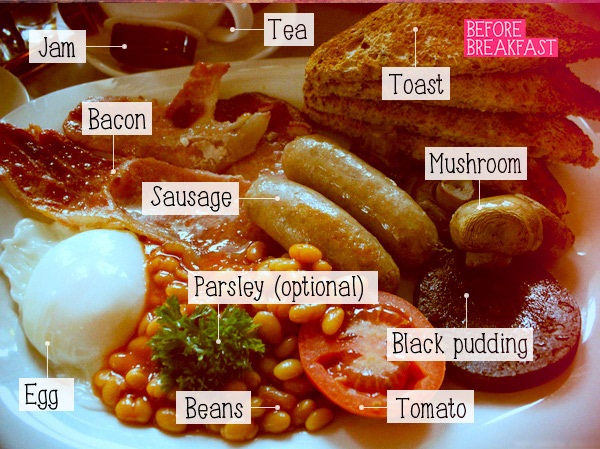
I created this font on my Ipad in less than 10 minutes, then I had breakfast. So I decided to call is before breakfast.
Its a fun, handwritten typeface that probably breaks every rule in typography. It has uppercase, lowercase, numbers and quite a few punctuation glyphs.